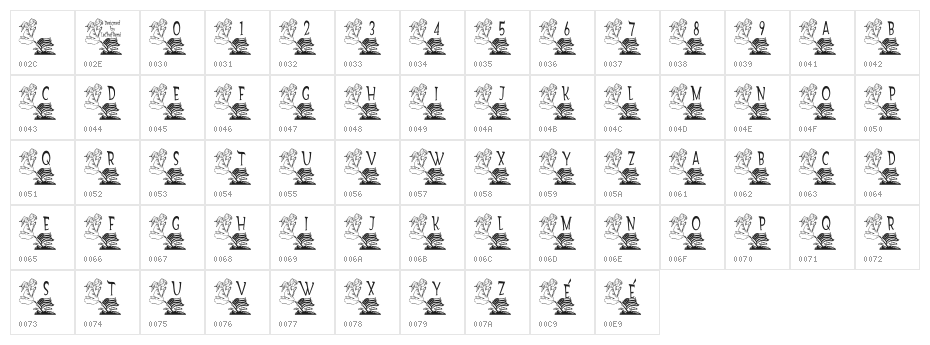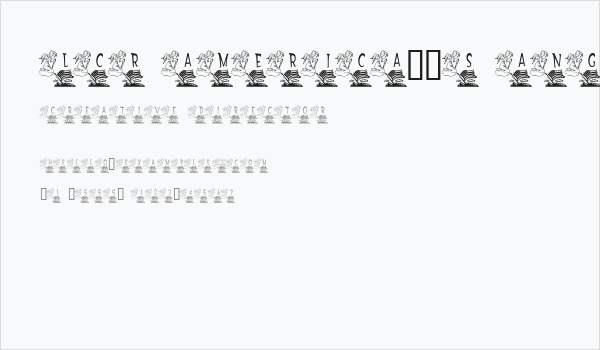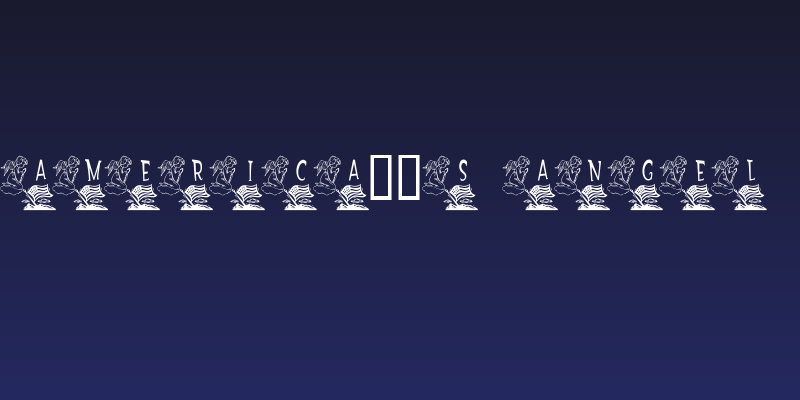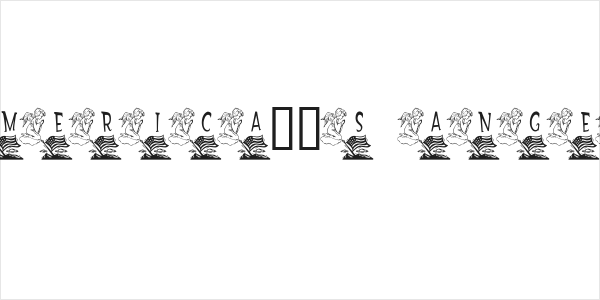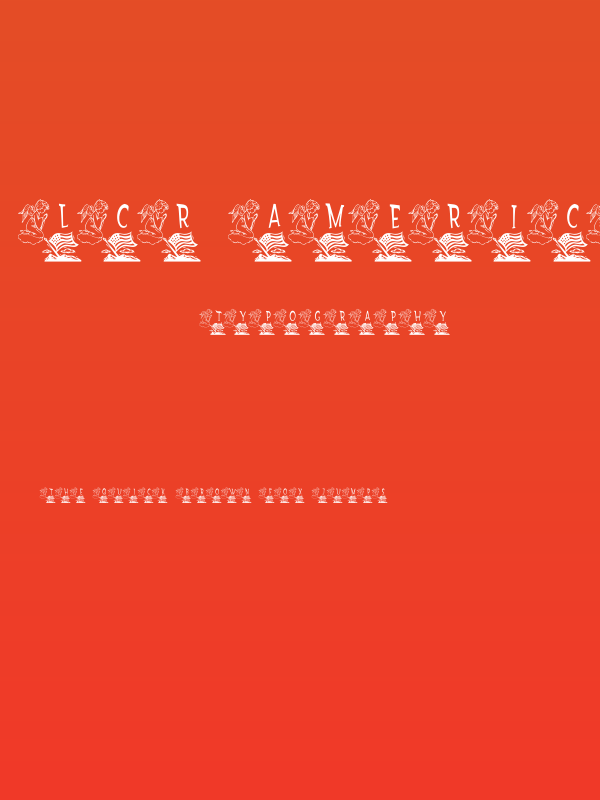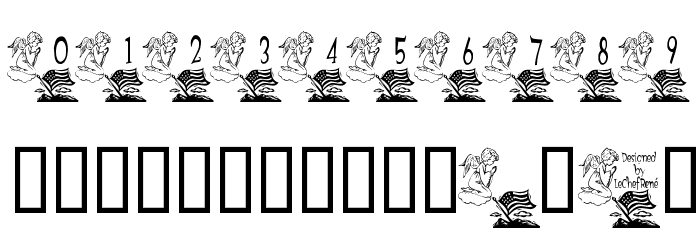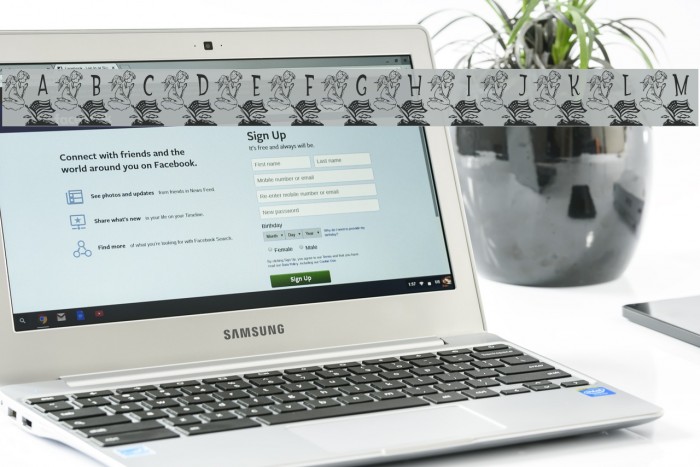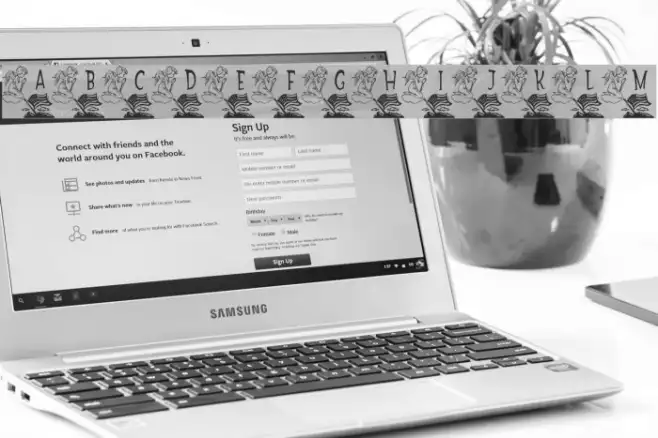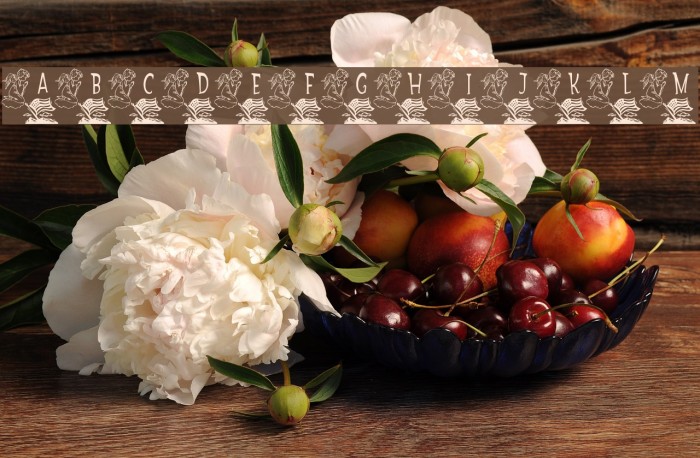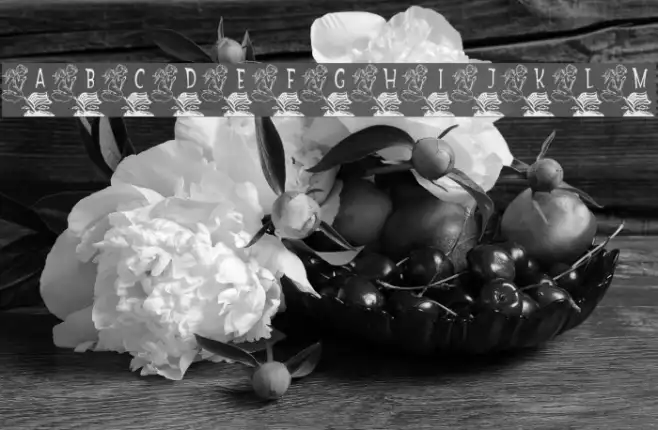
LCR America's Angel LSF Font
LCR America's Angel LSF Description
This decorative font features a unique design where each character is accompanied by an angel illustration. The letters are uppercase and have a classic serif style, providing a traditional and elegant look. The numbers and special characters follow the same pattern, maintaining consistency throughout the font. The angel motif adds a whimsical and artistic touch, making it suitable for creative and themed projects. The overall design is intricate and detailed, showcasing a blend of classic typography with decorative elements.
| Proposed Projects | Ideal for greeting cards, invitations, religious or spiritual themed projects, and decorative posters. |